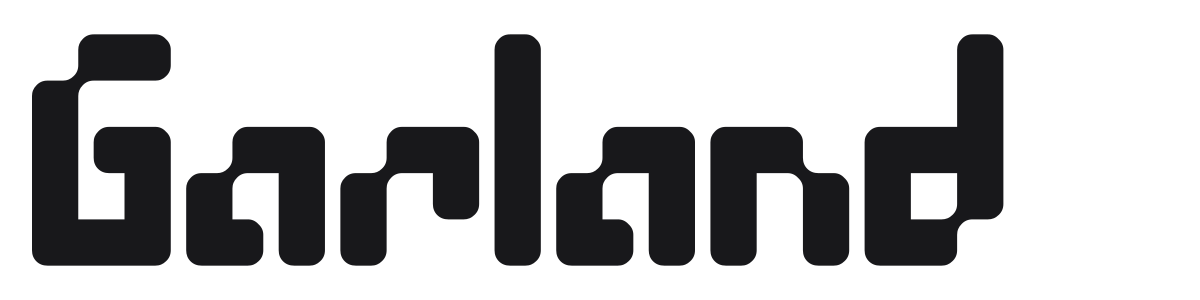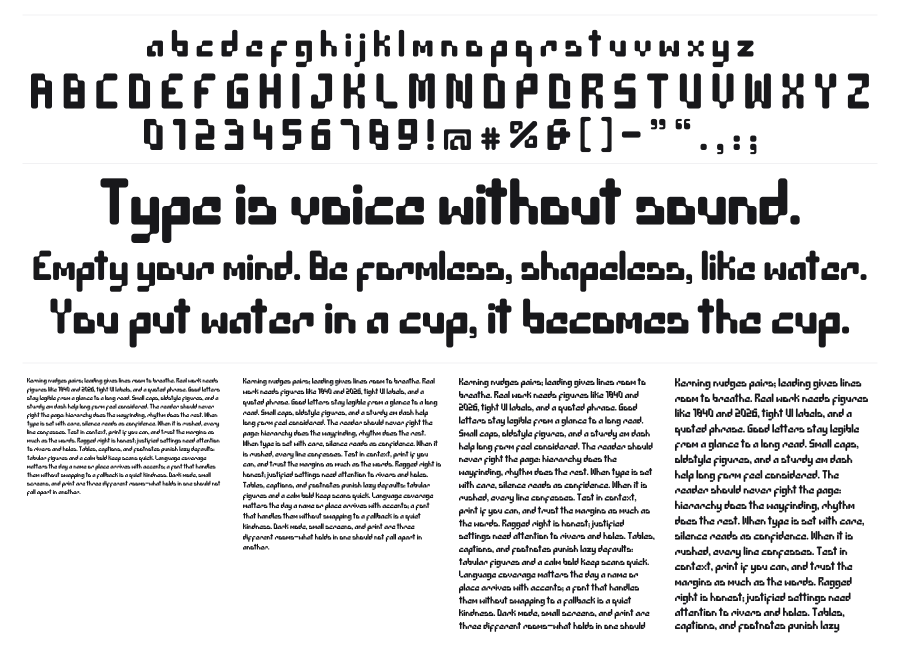
Garland
Garland is a heavy modular sans built entirely from rounded rectangular segments, like a chunky digital display drawn with soft edges. The strict grid construction and near-zero stroke contrast give it a retro-futuristic personality that sits somewhere between 1970s tech optimism and contemporary gaming aesthetics. It works at large sizes where the modular geometry can breathe.